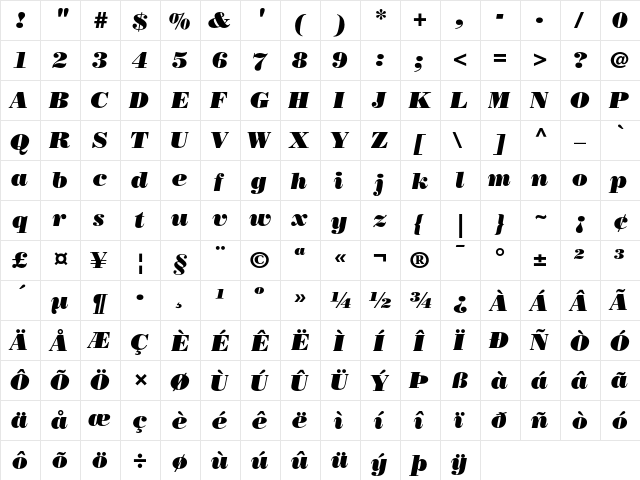
Bodoni Poster Italic
Design Context for Bodoni Typeface
Bodoni is a composed and adaptable typeface that performs quietly and consistently across a wide range of design contexts. The dynamic lean of this cut emphasises speed and emphasis in any layout.
Pro Tip: Use Bodoni for emphasis, pull quotes, and subheadings where its slanted energy can add rhythm to the layout.